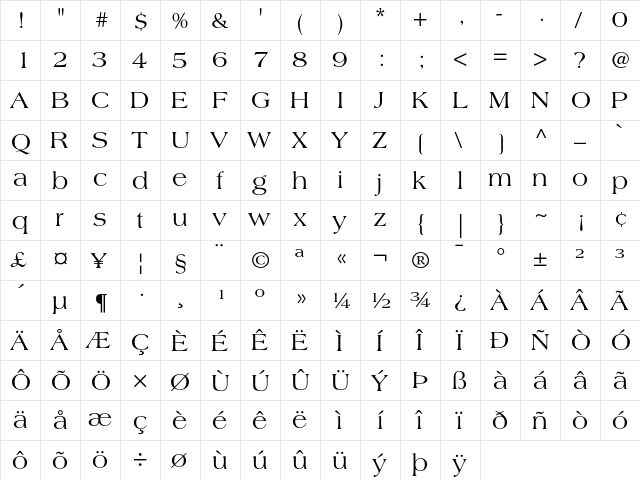
Americana Roman
Design Context for Americana Typeface
Americana offers clean, dependable letterforms without strong stylistic allegiance, making it a practical choice for designers who need flexibility.
Pro Tip: Use Americana in both headline and body roles to test its range before committing to a single application.